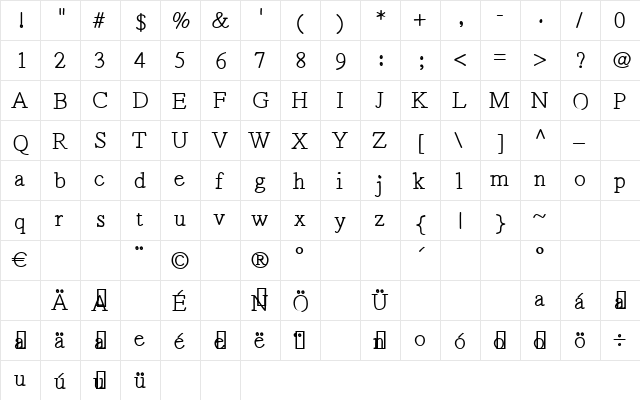
Lettertiep Vet
Design Context for Lettertiep Typeface
Lettertiep takes a measured approach to typography — its balanced proportions and neutral character make it a reliable workhorse for both digital and print work.
Pro Tip: Pair Lettertiep with a font of contrasting weight or personality to build a more expressive typographic hierarchy.